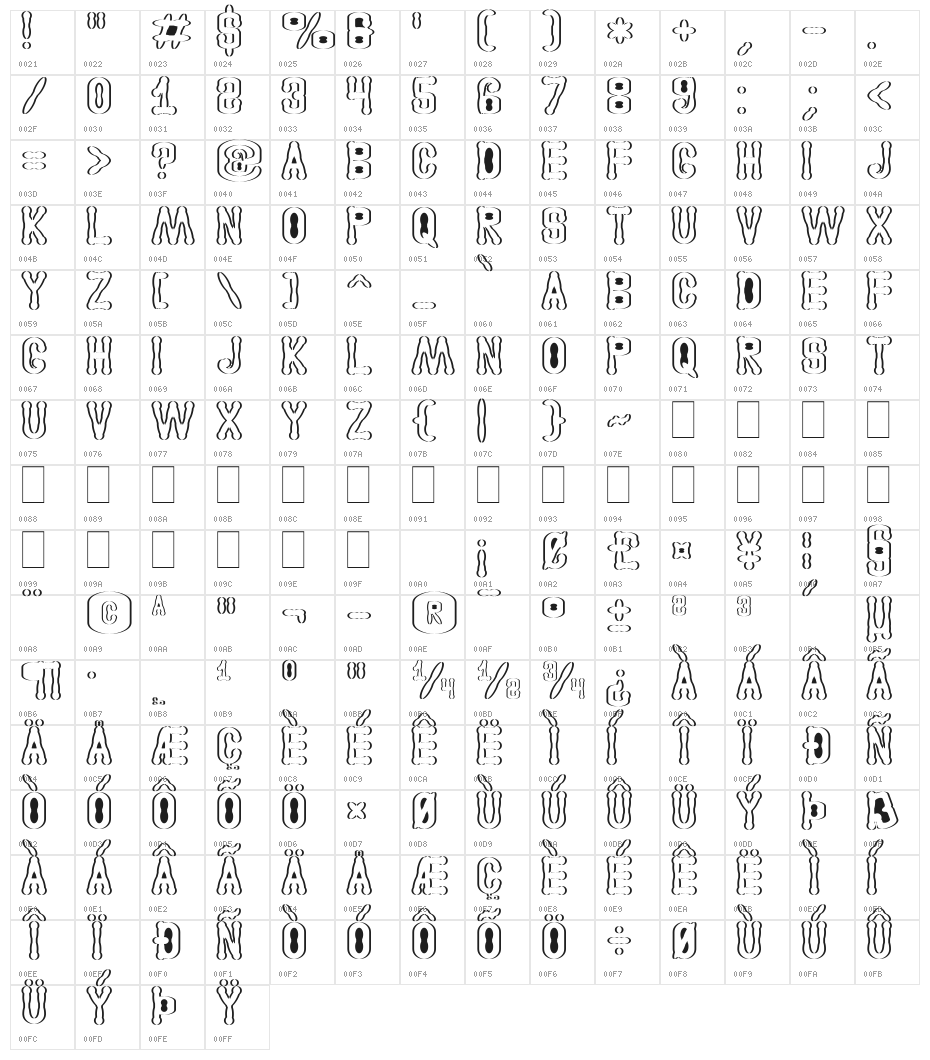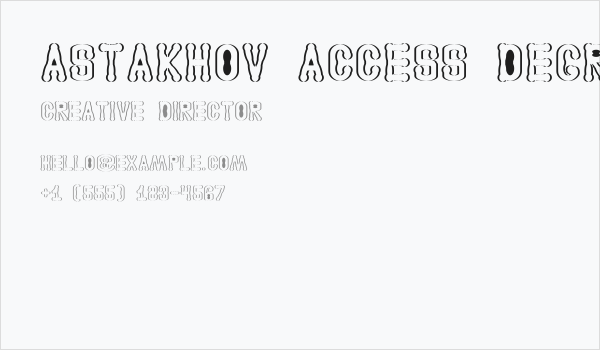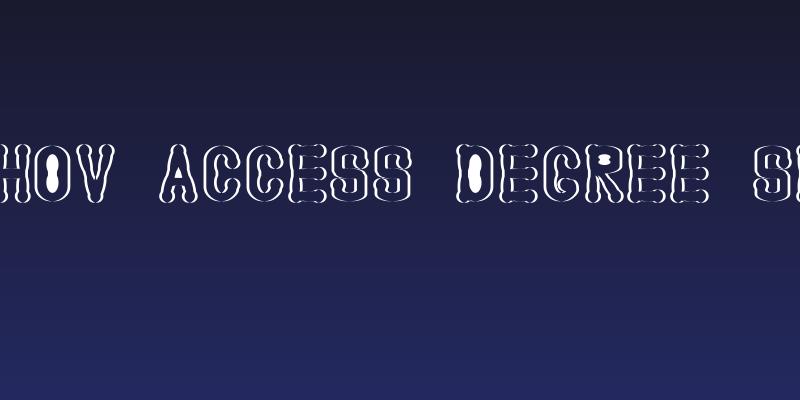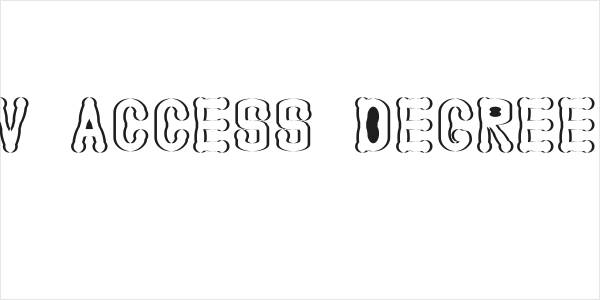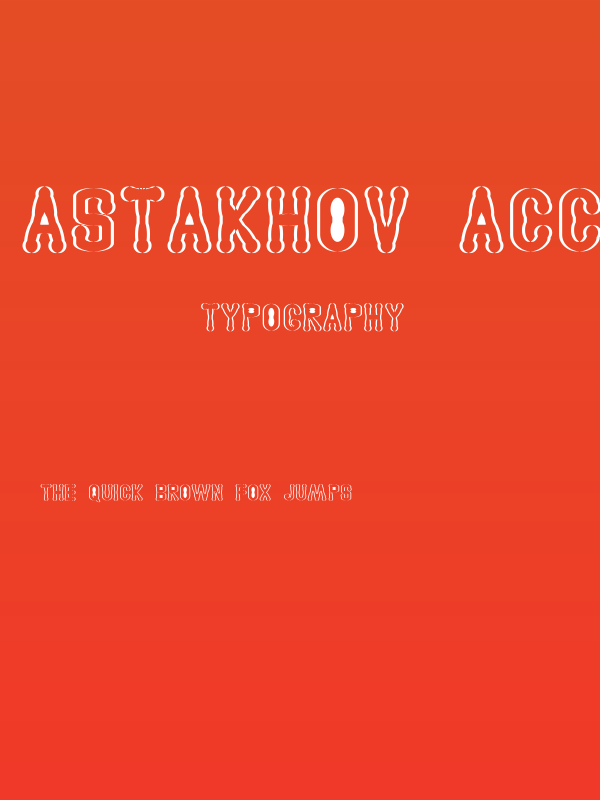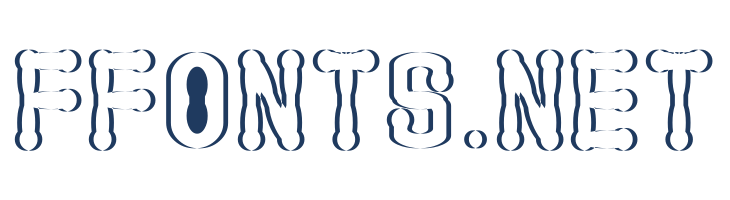
Astakhov Access Degree Serif S Font
Astakhov Access Degree Serif S Description
This font features a unique, decorative style with a playful and artistic flair. The characters are outlined with a bold, uneven stroke that gives them a hand-drawn appearance. The interior of each letter is hollow, creating a striking contrast between the thick outlines and the empty space within. This design choice adds a dynamic and eye-catching element to the font, making it suitable for creative and informal applications. The uppercase and lowercase letters maintain a consistent style, with rounded edges and a slightly irregular shape that enhances the whimsical aesthetic. The numbers and special characters follow the same design principles, ensuring a cohesive look across all elements.
| Proposed Projects | Ideal for posters, artistic projects, children's books, and playful branding. |